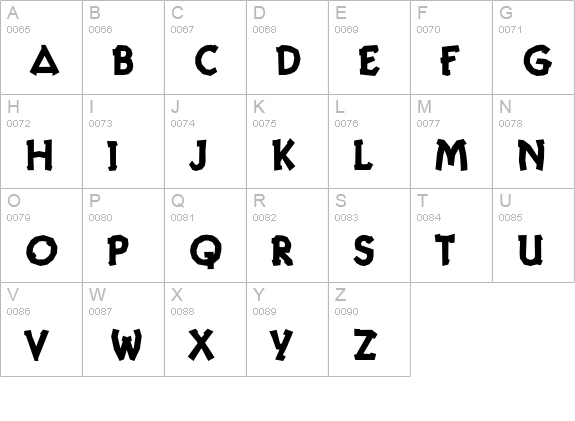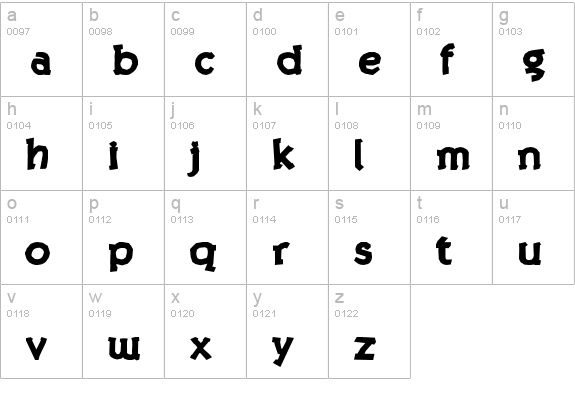
Twig Black is a maximum-weight, dramatic variant in the Twig typeface family \xE2\x80\x94 well suited to maximum-impact headlines, posters, and packaging.